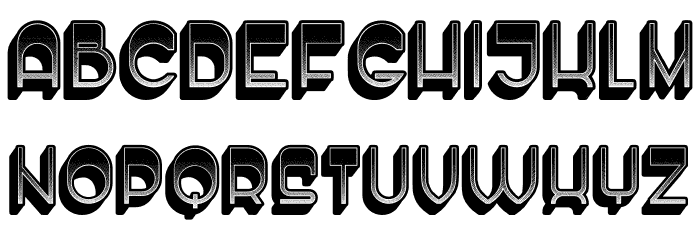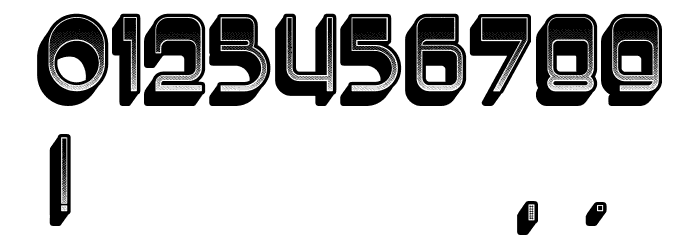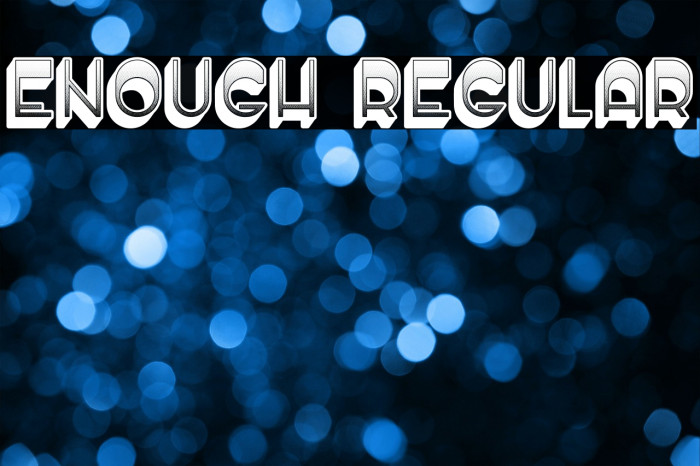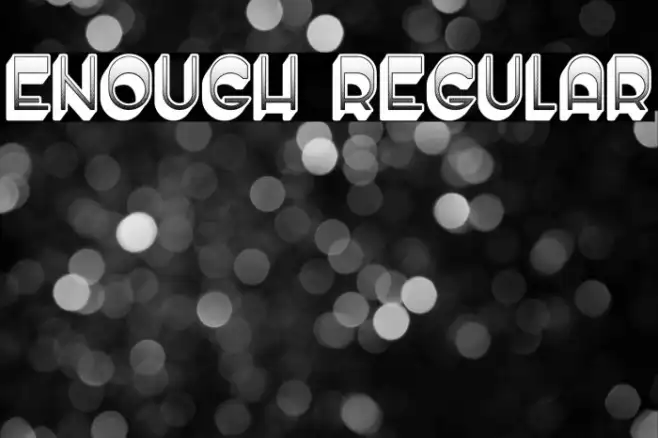
Enough Regular Font
This font features a bold, three-dimensional appearance with a distinct shadow effect, giving it a strong and impactful look. The characters are uppercase and have a geometric structure, with clean lines and sharp angles. The design incorporates a unique inline detail that adds depth and interest. The font is highly stylized, making it suitable for attention-grabbing headlines or display purposes. Its boldness and shadowing create a sense of movement and dynamism, making it ideal for projects that require a modern and edgy aesthetic.
A bold, 3D geometric font with shadow effects and inline details.
- Proposed Projects: Ideal for posters, logos, branding, and any project needing a striking, modern look.